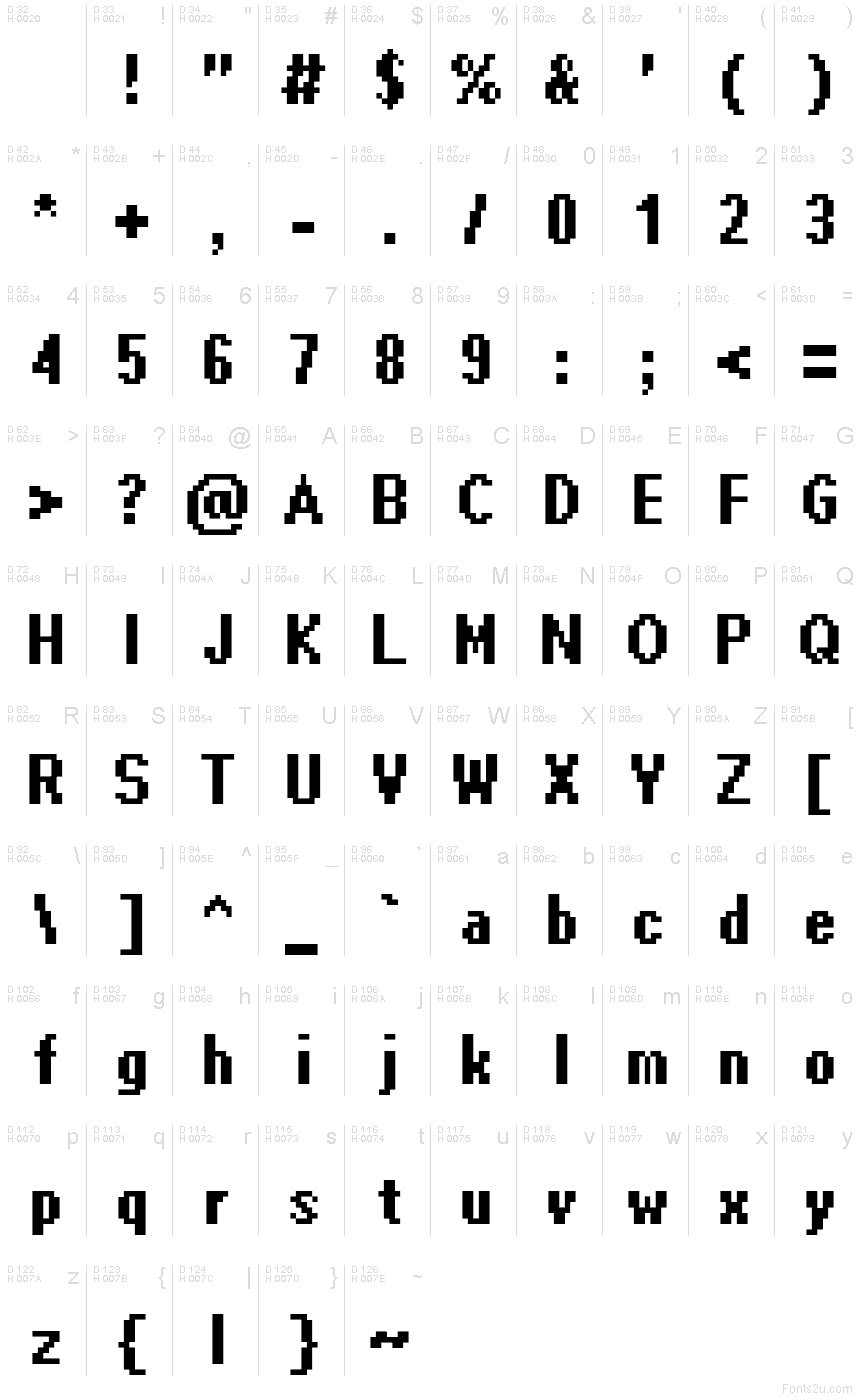
Ari-W9500 Condensed Bold Regular
Ari-W9500 Condensed Bold font is a blocky bitmap typeface by Catterio Sylt with a pixelated geometric design. This condensed bold font offers a digital aesthetic combined with a retro-futuristic feel that is equally modern. The perfect balance achieved between the style and each letter's shape make this free font as legible as it gets.
Designer description: The bold weight of Ari-W9500 Condensed.